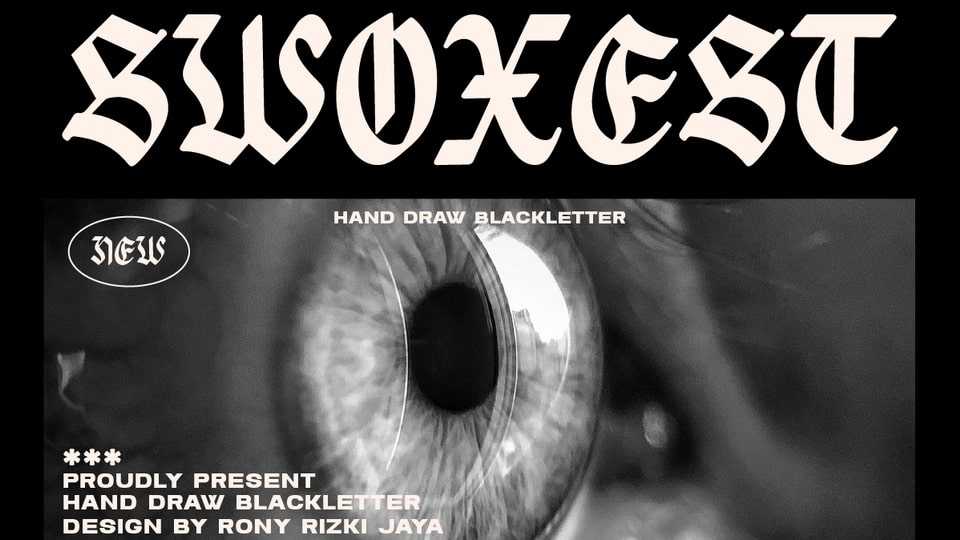
Download Swoxest is a high-contrast blackletter typeface, it adds a bold touch to your projects and will inspire you to create something unique and modern. Swoxest font is ideal for titles, flyers, greeting cards, product packaging, book covers, printed quotes, logotypes, clothing designs, branding and album covers.